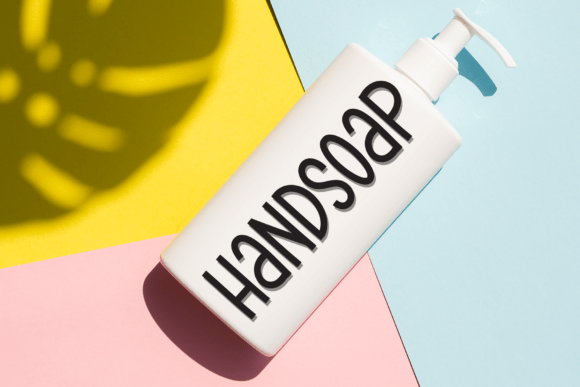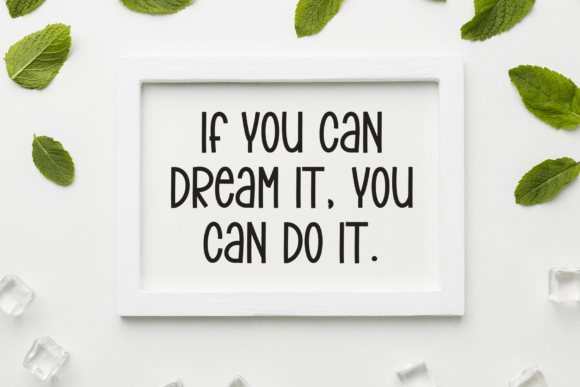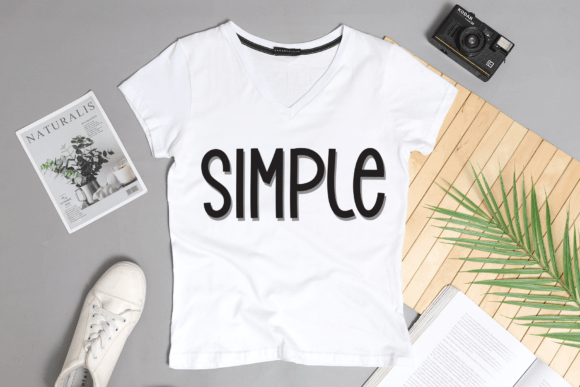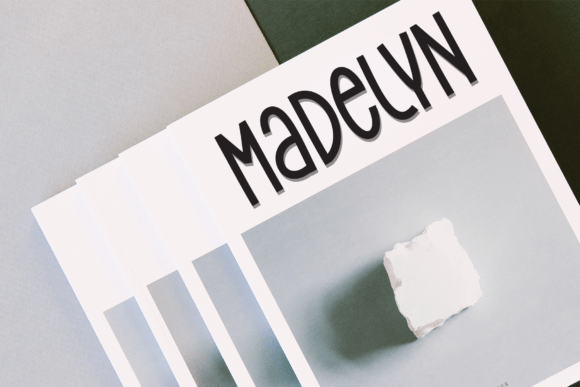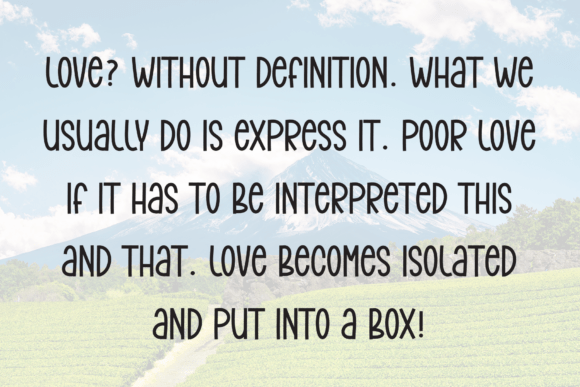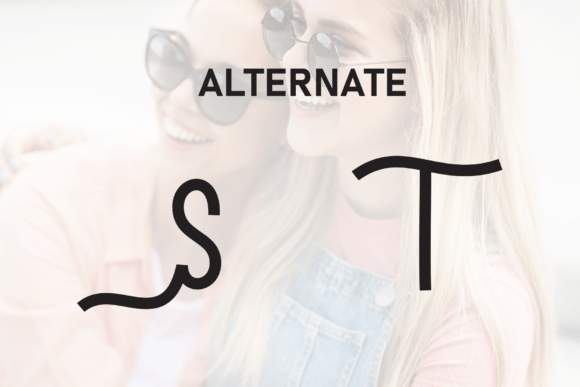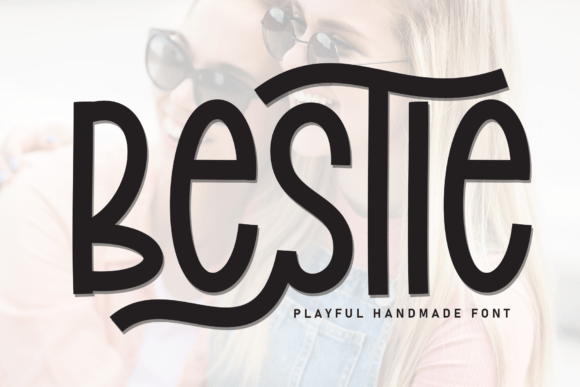
The Ultimate Font for Warmth and Whimsy: A Deep Dive into Bestie Font
I’ll never forget the time I was working on a wedding invitation design project, and my client specifically asked for a font that would make their special day feel “warm and fuzzy.” I scoured the internet, trying out font after font, but nothing seemed to capture that perfect blend of playfulness and affection. That was until I stumbled upon Bestie Font. ✨
Bestie typeface is a welcoming, friendly handwritten display font that’s perfect for exuding warmth and whimsy. Infused with the joyous appeal of cuteness, its playful essence promises to bring a cheerful vibe to your design creations. Whether it’s elevating wedding invitations with a heartwarming feel or adding a jovial twist to greeting cards, Bestie effortlessly knits a story with a fun touch, illuminating every design with an irresistible burst of affectionate energy.
What I Love About Bestie Font
- ✨ Warm and inviting feel: Bestie Font has a unique ability to make your designs feel cozy and approachable.
- 🎉 Perfect for playful designs: From wedding invitations to birthday cards, Bestie Font is the perfect choice for designs that need a touch of whimsy.
While Bestie Font is an amazing addition to any designer’s toolkit, there are a few things to keep in mind: ⚠️
- 🤔 Legibility at small sizes: Like many script fonts, Bestie can be a bit tricky to read at very small sizes. Make sure to test it out at different sizes to ensure it’s legible for your specific project.
The Backstory Behind Bestie Font
Bestie Font was designed with one goal in mind: to create a font that would bring a sense of warmth and playfulness to any design project. The designer, who wishes to remain anonymous, drew inspiration from their own experiences with friendship and connection. The result is a font that’s equal parts whimsical and affectionate – perfect for designers who want to add a touch of personality to their work.
Q: Is Bestie Font suitable for body text?
A: While Bestie Font is beautiful and playful, it’s best suited for display text or headings. For body text, you may want to choose a font with better legibility.